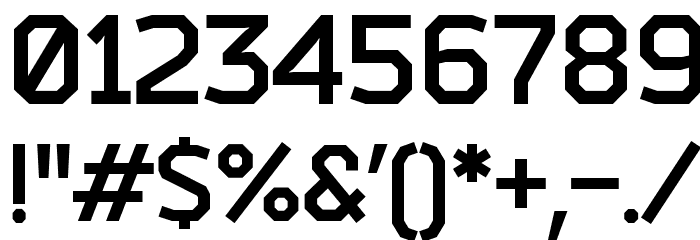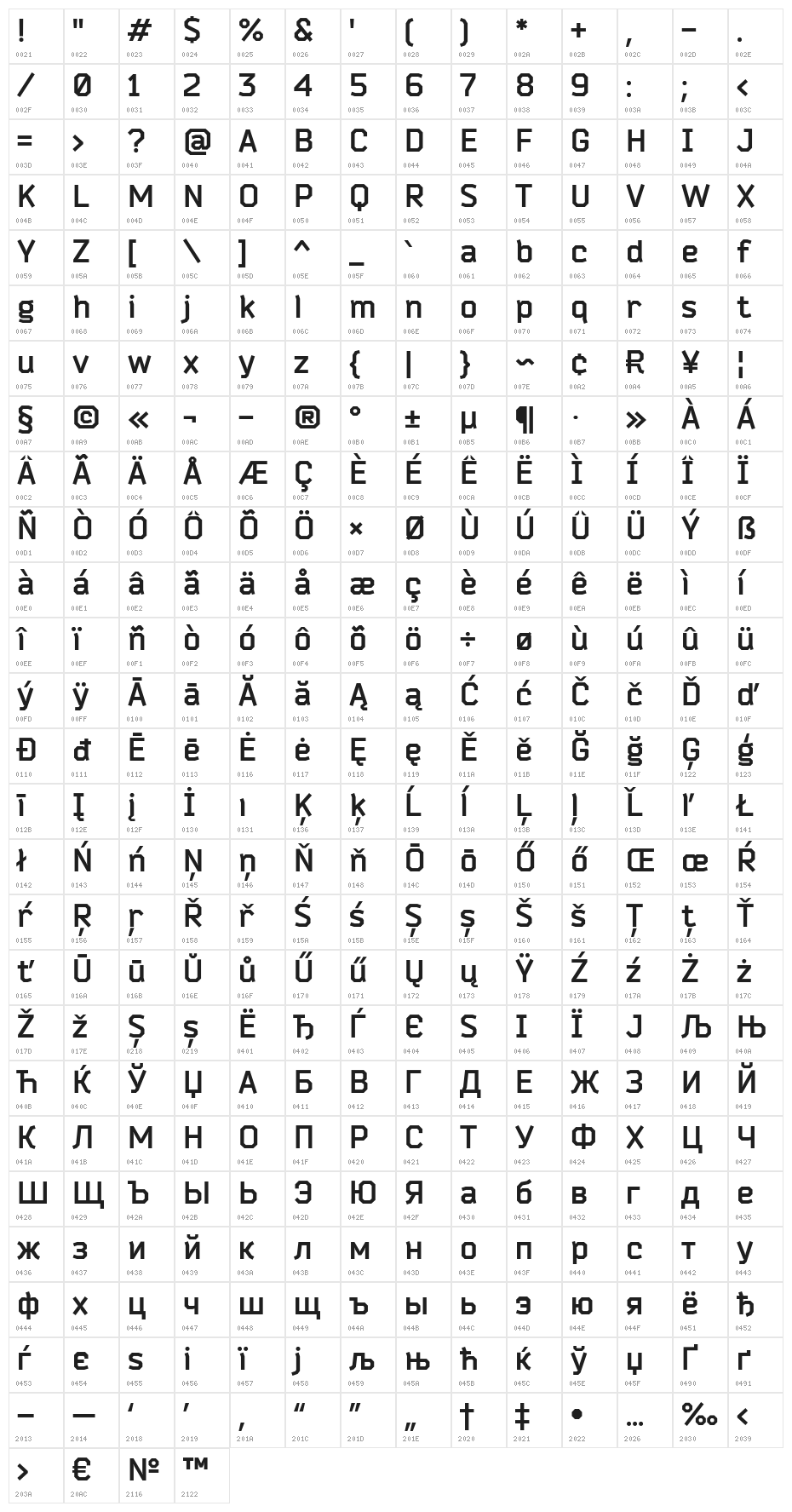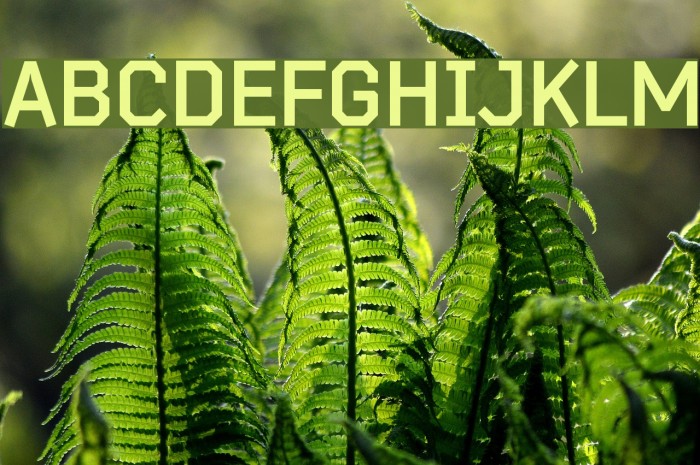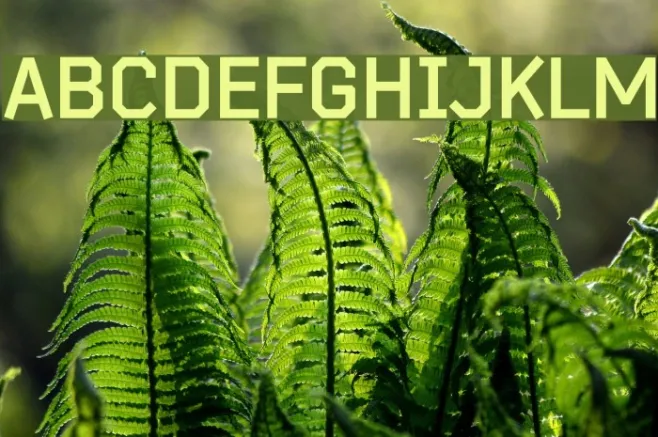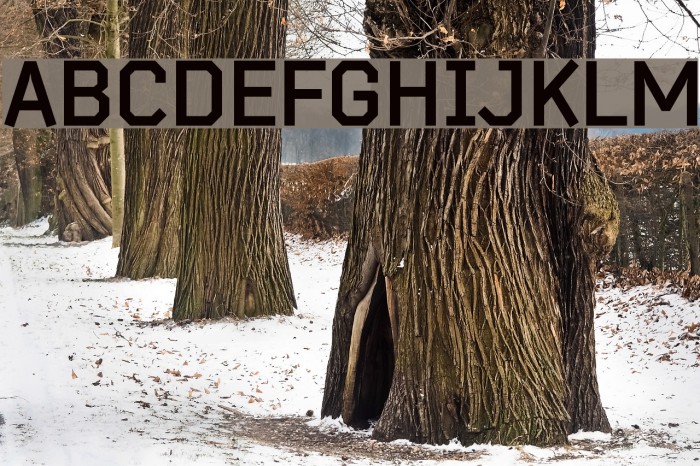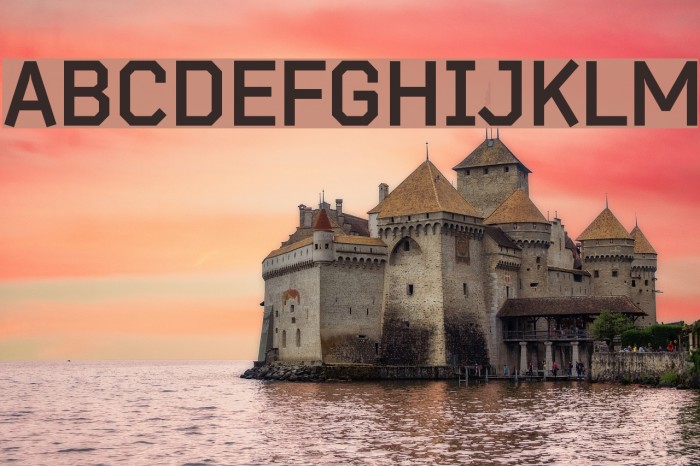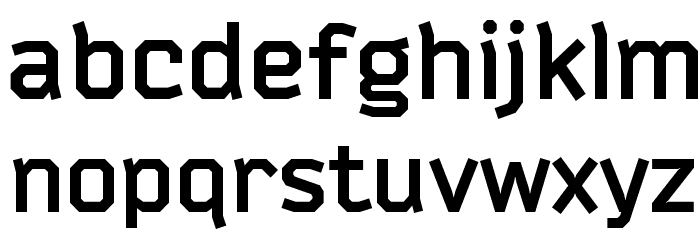
Bender-Bold Font
Bender-Bold Description
This font features a bold, geometric design with a strong, angular presence. The characters are constructed with a uniform stroke width, giving it a modern and industrial feel. The uppercase letters are particularly striking, with sharp edges and a consistent height that conveys strength and stability. The lowercase letters maintain the same geometric style, ensuring readability while adding a touch of uniqueness. Numbers and special characters are designed to match the boldness and clarity of the alphabet, making them suitable for a variety of applications. The overall style is both contemporary and versatile, making it ideal for projects that require a strong visual impact.